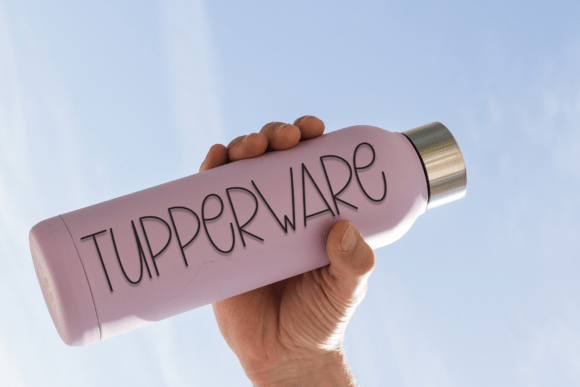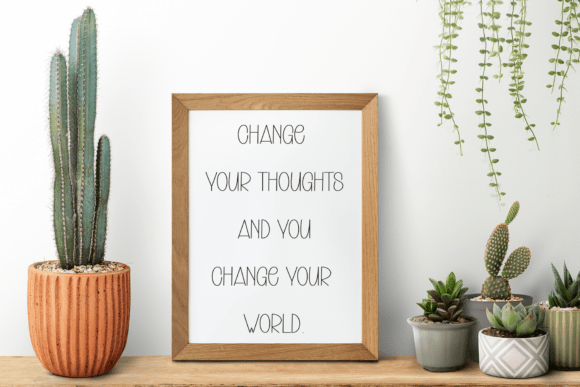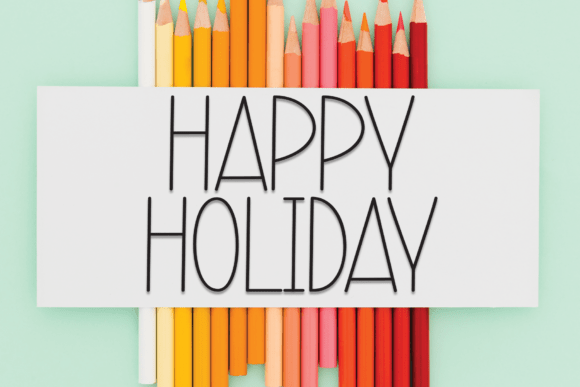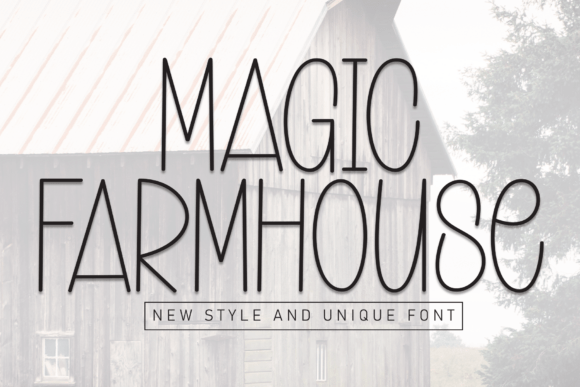
Introduction to Magic Farmhouse Font
Magic Farmhouse is a casual and neat display font that radiates a fresh, friendly vibe.
With clean lines and a relaxed structure, it’s perfect for packaging, posters, and social media graphics The approachable design adds charm and clarity to projects while maintaining a polished appearance.
Key Features of Magic Farmhouse Font
Why Choose Magic Farmhouse Font?
Magic Farmhouse Font offers exceptional quality and versatility, making it a valuable addition to your design toolkit. Whether you’re creating for personal projects or commercial use, Magic Farmhouse Font delivers professional results.